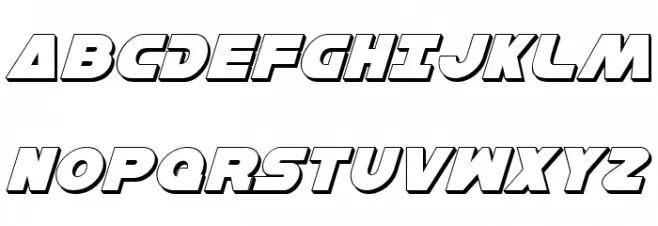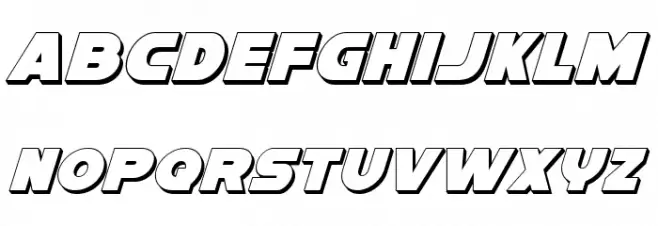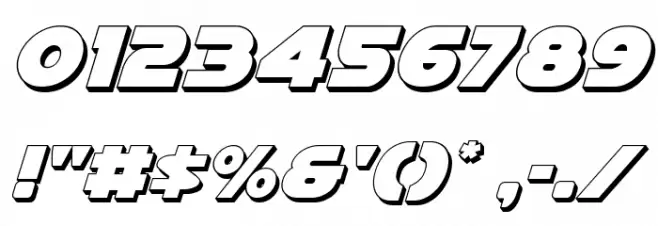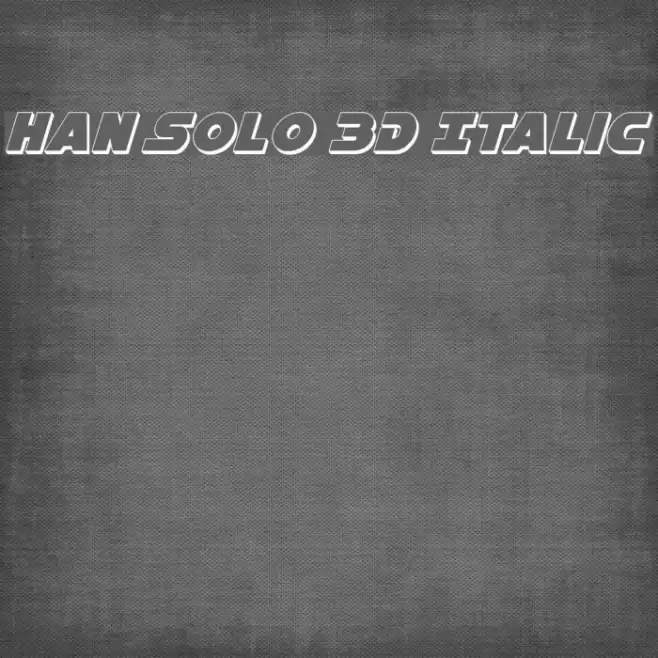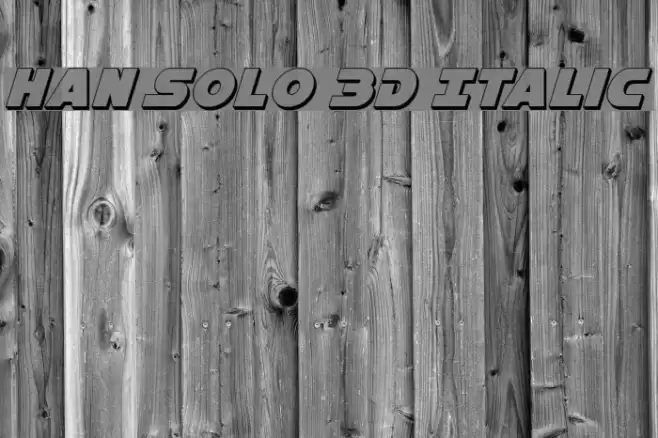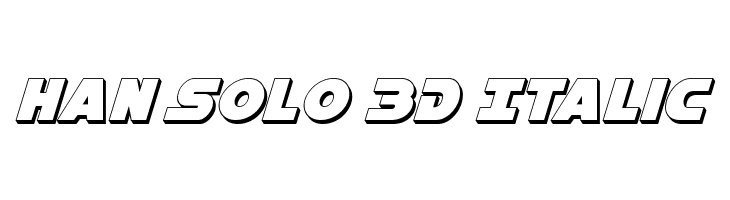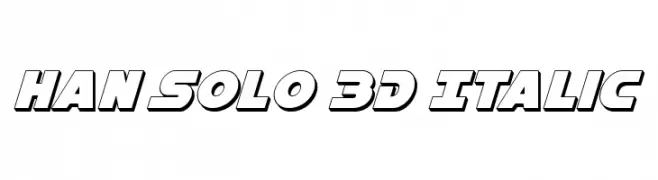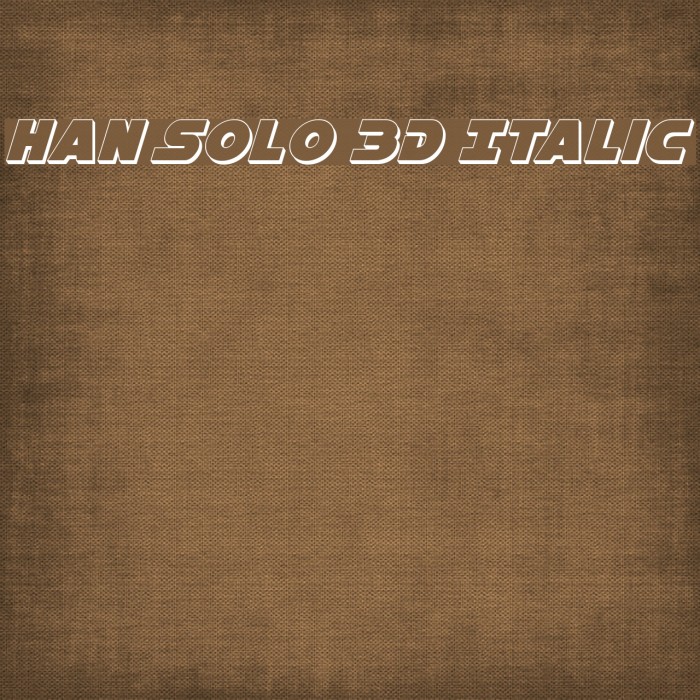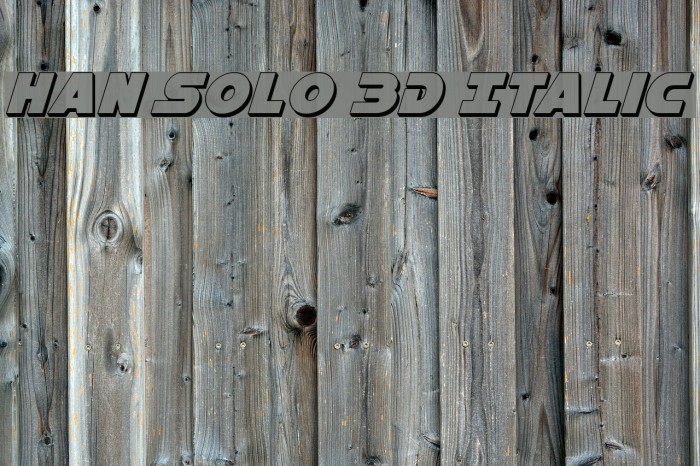
Han Solo 3D Italic
This font features a bold, three-dimensional appearance with a distinct italic slant, giving it a dynamic and futuristic feel. The characters are outlined, creating a shadow effect that enhances the 3D illusion. The uppercase letters are robust and angular, while the numbers and special characters maintain the same bold style. The overall design is reminiscent of sci-fi themes, making it ideal for projects that require a modern and adventurous look.
A bold, 3D italic font with a futuristic and dynamic style.
- Proposed Projects: Ideal for sci-fi themed posters, video game titles, movie logos, and any project requiring a bold, futuristic aesthetic.
- Contrast: High